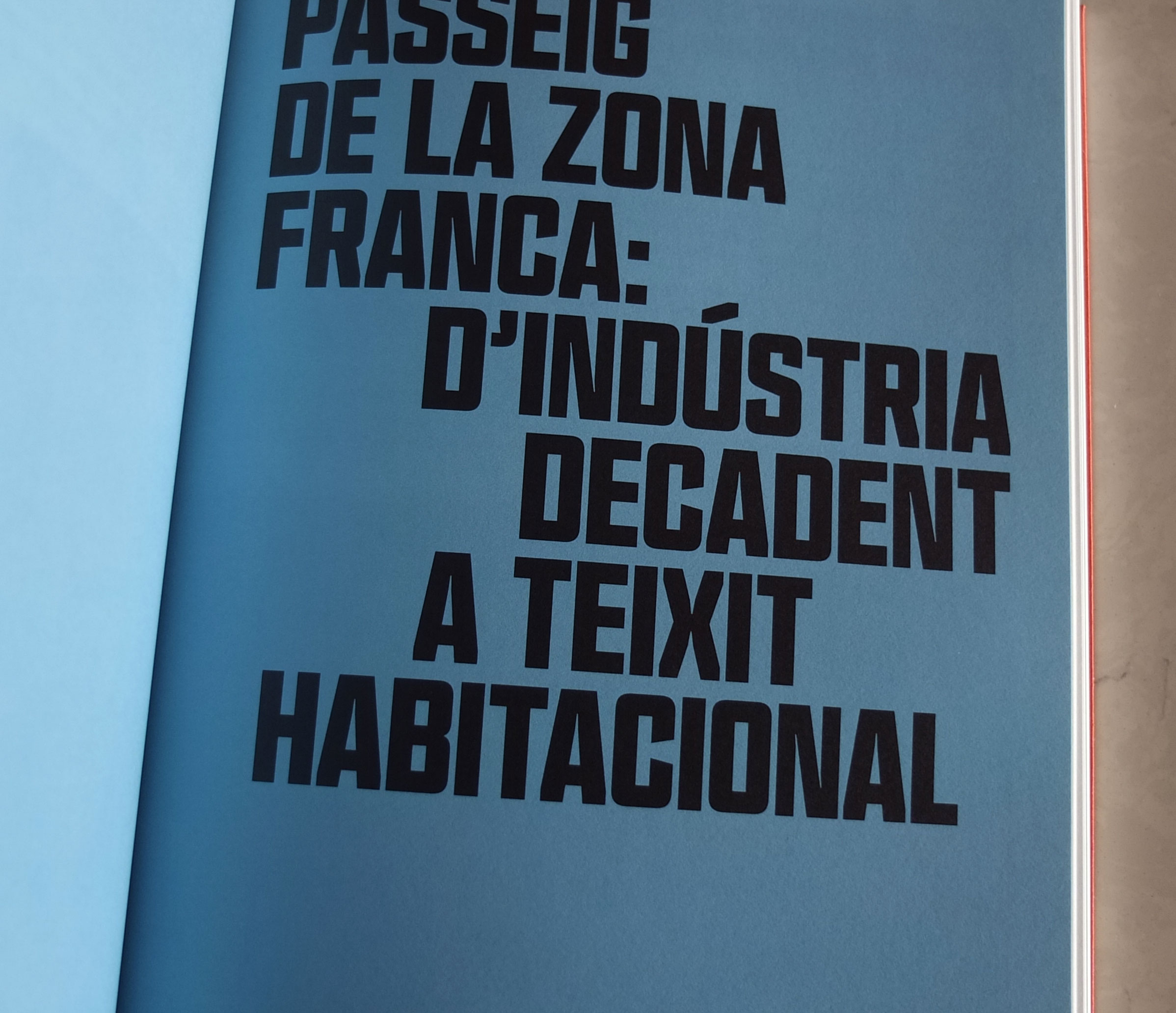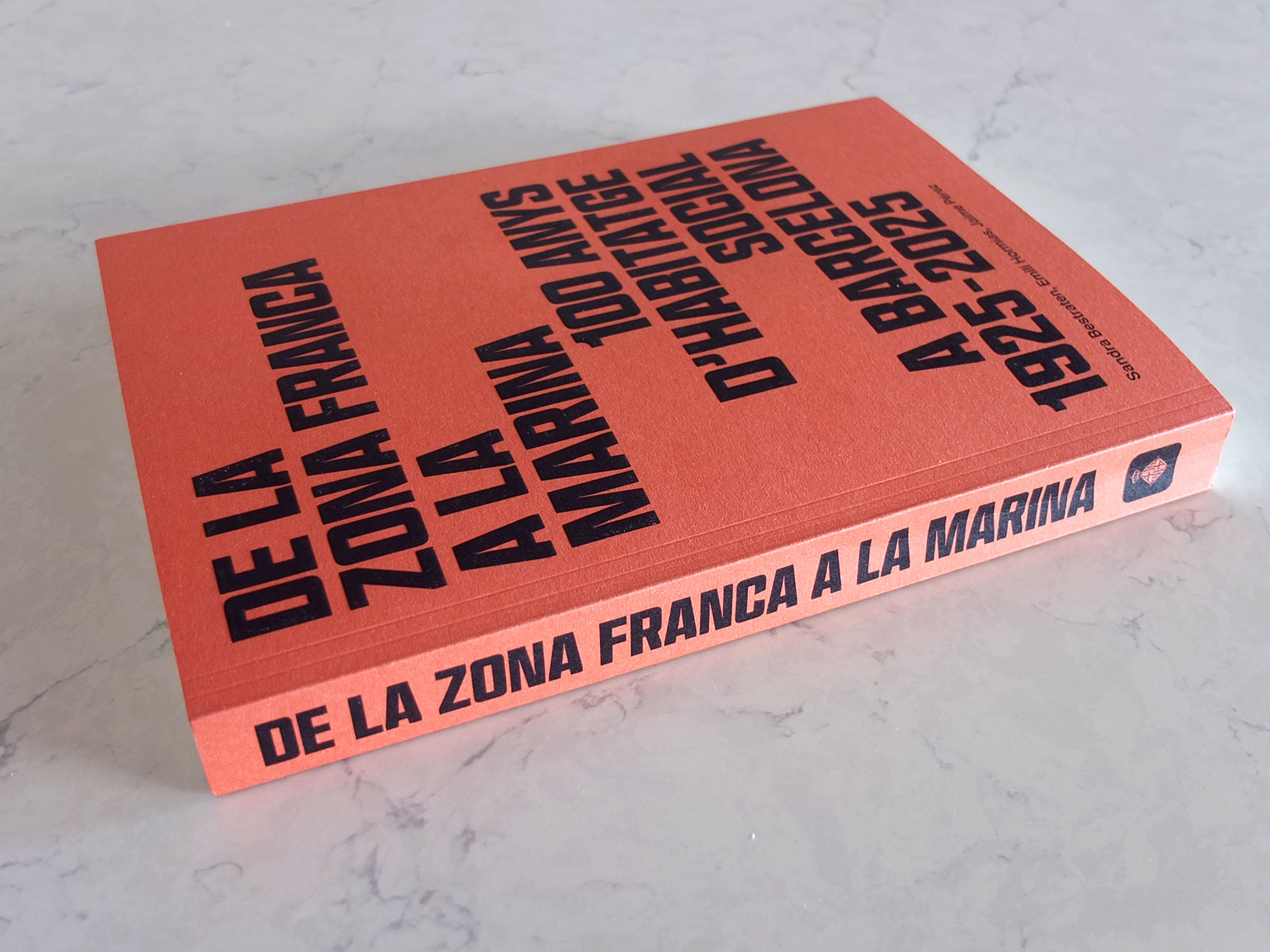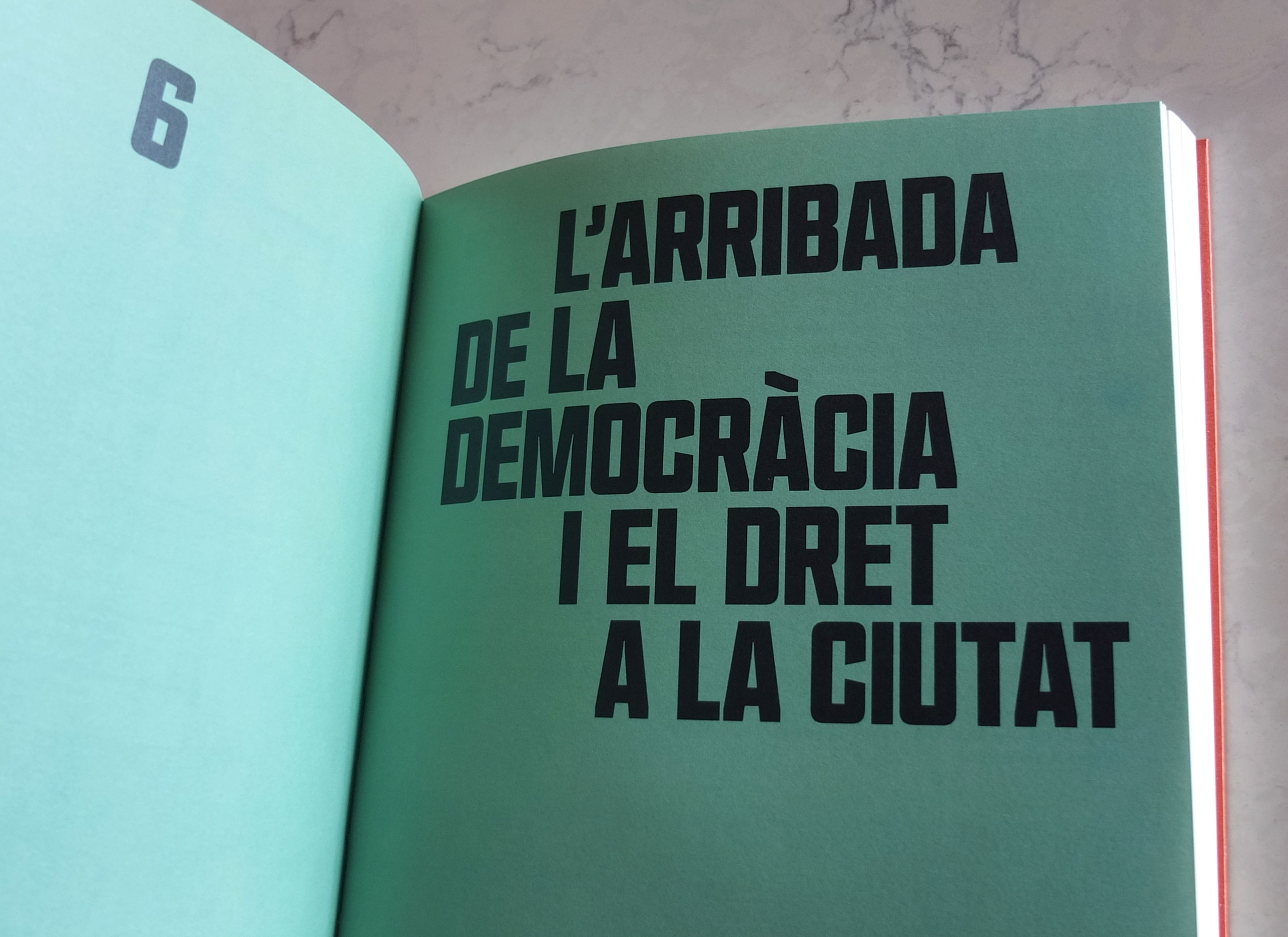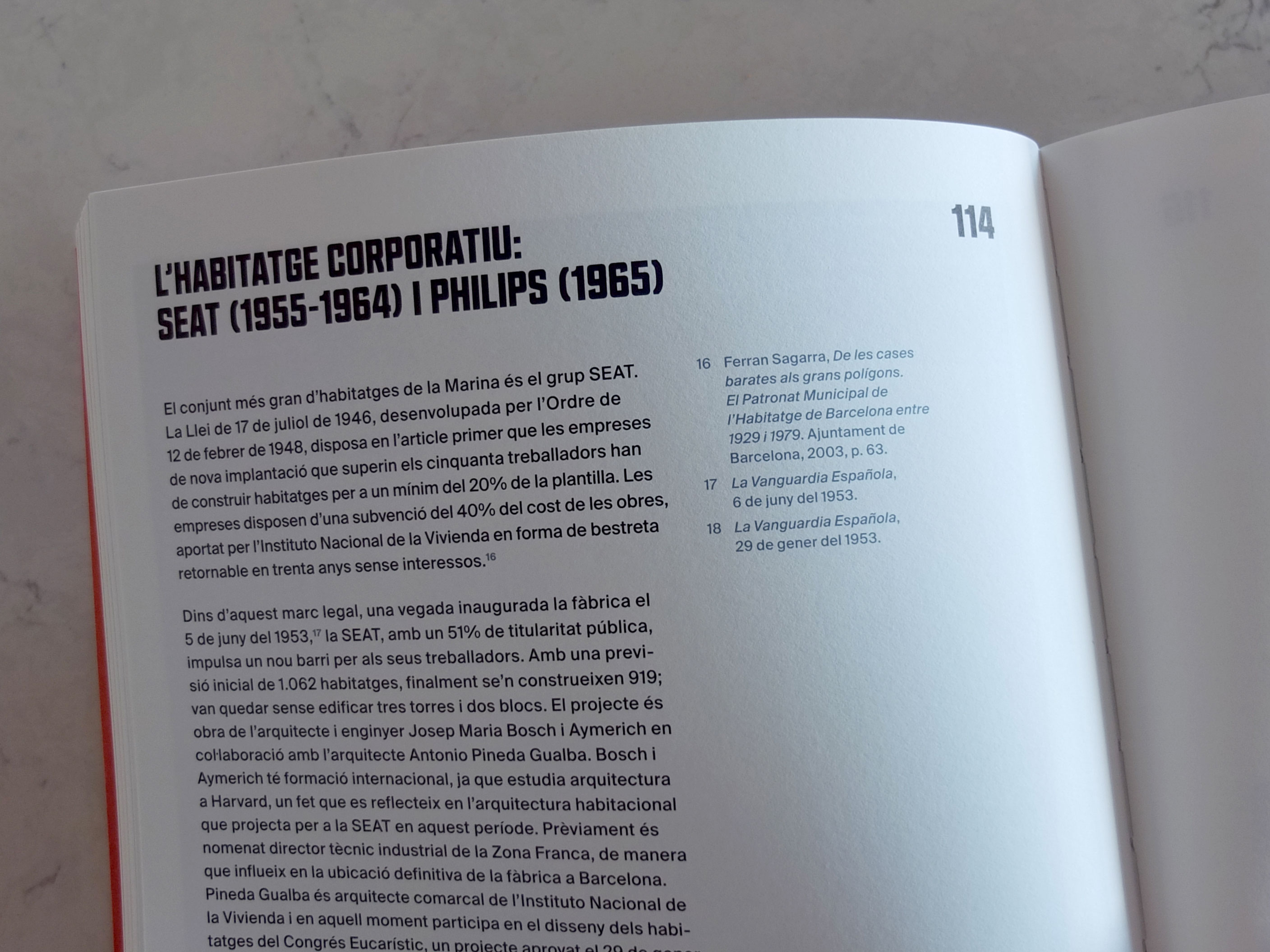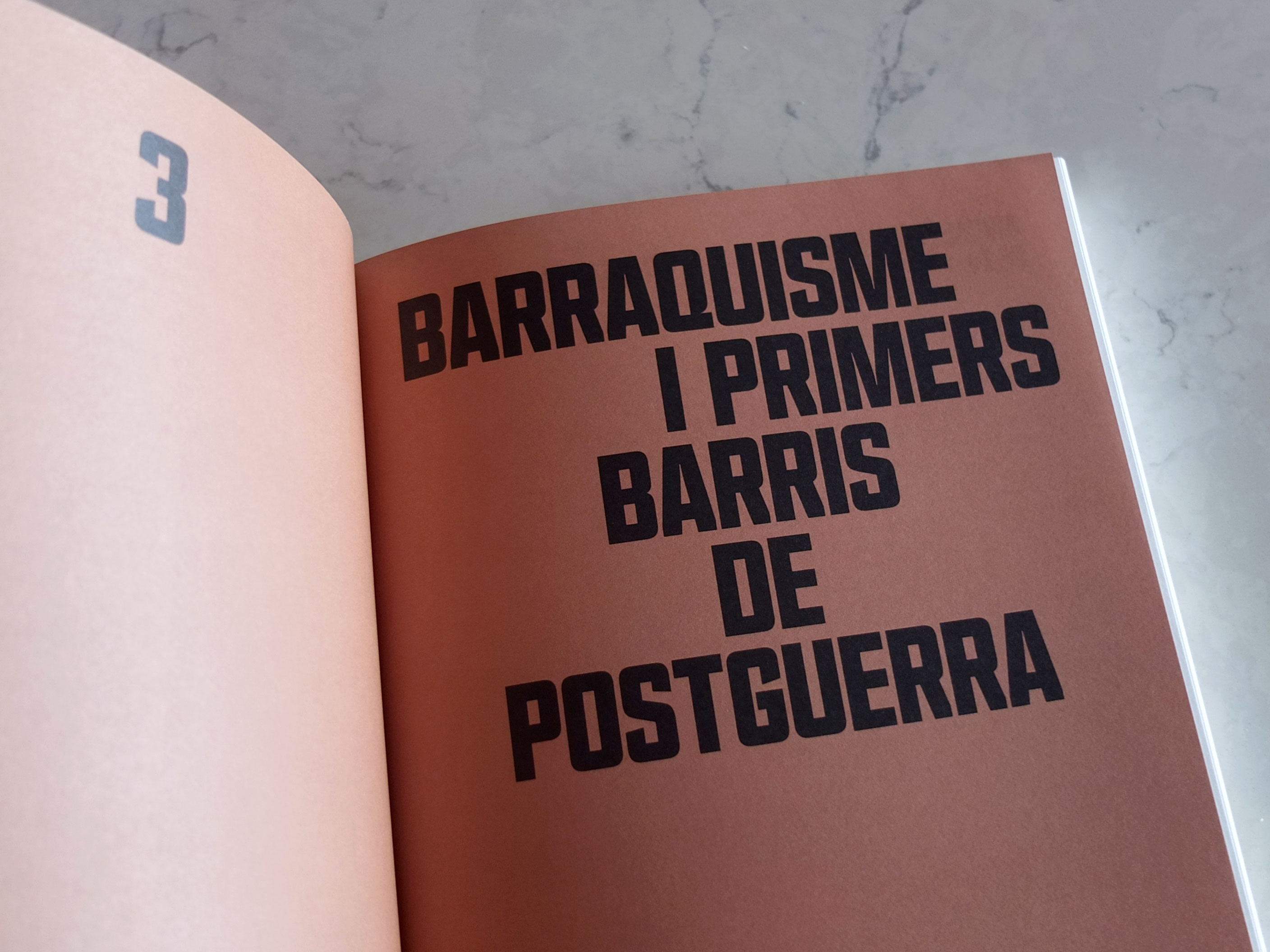
La Marina
Carles Murillo
La Marina
2025
A quick design of bold, condensed, squared and display font, only the uppercase set, commissioned by Carles Murillo for an architecture book.